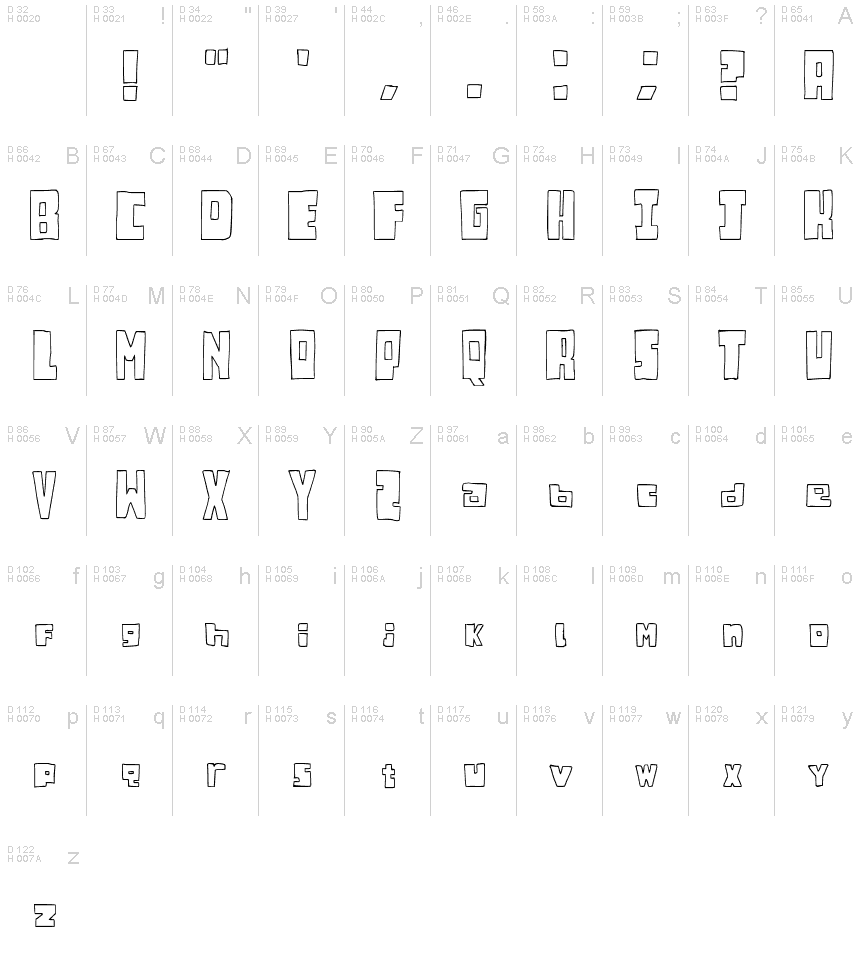
Bloxxer Binnus Regular
Meet Bloxxer Binnus, the bold and playful display font designed by fogman_roman. Its semi-expanded width makes it perfect for creating eye-catching headlines, titles or logos that demand attention. The outlined cartoon style adds a touch of whimsy to any project and brings a fun element to marketing materials, packaging designs or children's book covers. Pair with complementary sans-serif fonts for a balanced look or use it on its own for maximum impact. With its unique personality, Bloxxer Binnus is sure to make your message stand out from the crowd.